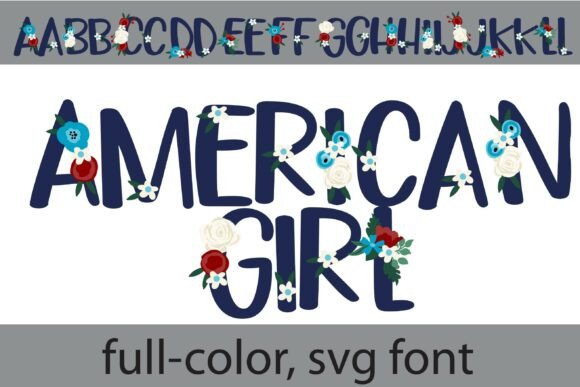
Introducing the American Girl Font: A Whimsical and Colorful Addition to Your Design Projects
The American Girl Font is a delightful and charming font that features a whimsical print with Americana flowers throughout. This full-color font is perfect for adding a touch of personality to your designs, and its versatility makes it suitable for a wide range of projects, from logos and branding to web design and print.
Key Features of the American Girl Font
This font comes with an exciting feature – an alt case of alternate colorings of each letter that you can access through your system or Silhouette’s glyph map. This means you can easily switch between different colors and styles to create unique and eye-catching designs.
The Benefits of Full-Color SVG Fonts
Full-color SVG fonts, like the American Girl Font, offer a range of benefits that make them an excellent choice for designers. Some of the advantages of using full-color SVG fonts include:
- Versatility: They are versatile and can be used for a variety of projects, from logos and branding to web design and print.
- Scalability: They are scalable, so you can use them for any size project, from business cards to billboards.
- High Quality: They are high quality and will not lose their resolution when scaled, ensuring that your designs always look crisp and professional.
Using the American Girl Font in Your Designs
With the American Girl Font, you can create anything from simple text logos to complex illustrations. The font’s vector-based design means that it can be scaled to any size without losing quality, making it perfect for a wide range of applications.
Whether you’re designing a logo, creating a website, or working on a print project, the American Girl Font is a great choice. Its whimsical and colorful design adds a touch of personality to any project, and its versatility ensures that it can be used in many different contexts.
Tips for Getting the Most Out of the American Girl Font
To get the most out of the American Girl Font, here are a few tips:
- Experiment with different colors: The font’s alt case feature allows you to access alternate colorings of each letter. Experiment with different colors and styles to create unique and eye-catching designs.
- Use it in combination with other fonts: The American Girl Font can be used in combination with other fonts to create interesting and dynamic designs.
- Take advantage of its scalability: The font’s vector-based design means that it can be scaled to any size without losing quality. Take advantage of this by using it for a wide range of projects, from small icons to large billboards.
The American Girl Font is a delightful and versatile font that is perfect for adding a touch of personality to your designs. Its whimsical and colorful design, combined with its scalability and ease of use, make it an excellent choice for a wide range of projects. Whether you’re a professional designer or just starting out, the American Girl Font is a great addition to your font library.